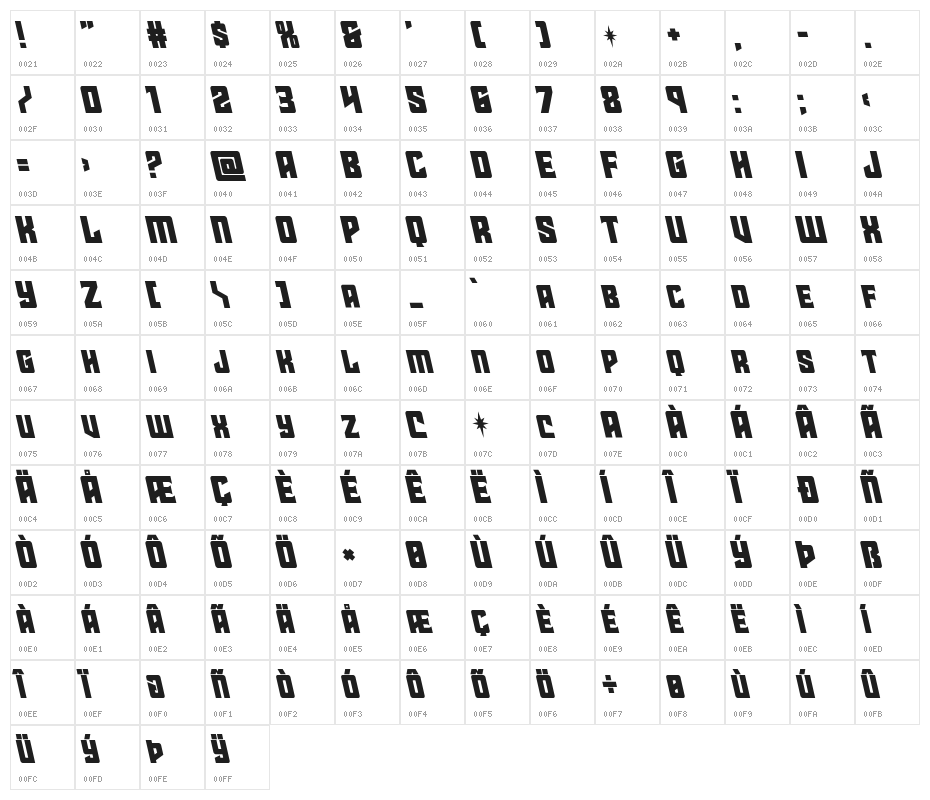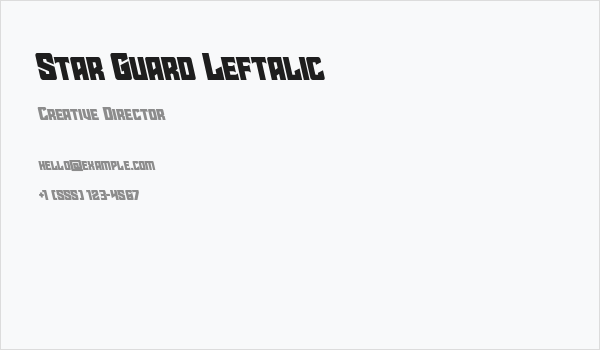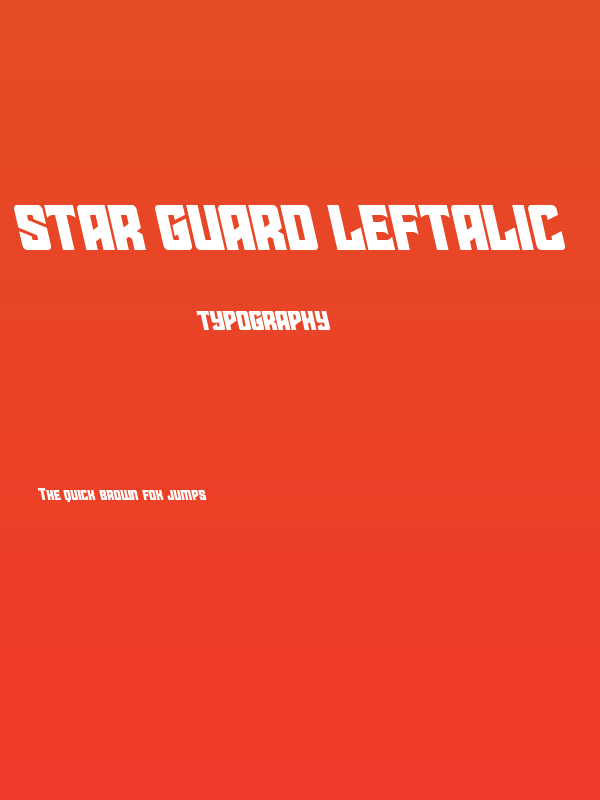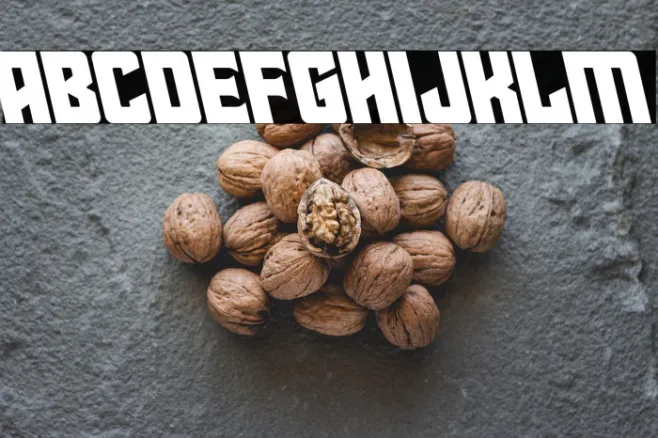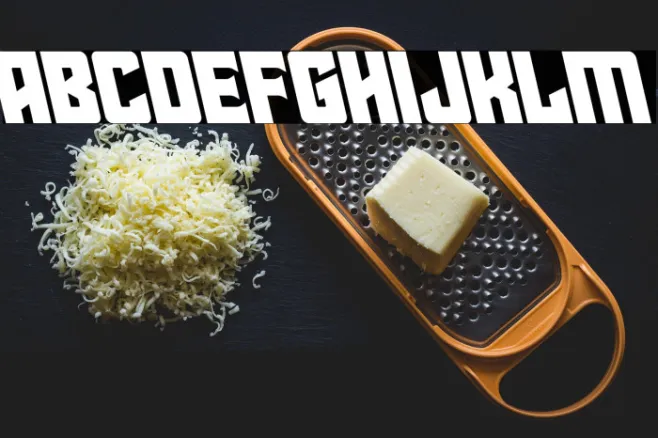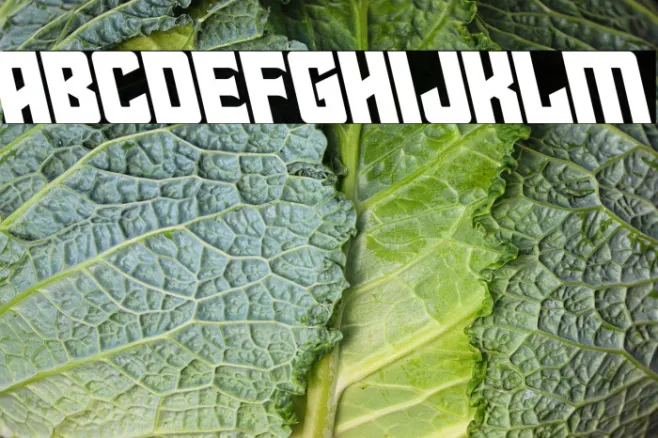
Star Guard Leftalic Font
Star Guard Leftalic Description
This font features a bold and dynamic design with a distinct slant to the left, giving it a sense of motion and energy. The characters are blocky and geometric, with sharp angles and a strong presence. The uppercase and lowercase letters maintain a consistent style, while the numerals and special characters complement the overall aesthetic. The font's boldness and unique style make it suitable for attention-grabbing designs.
| Name | Star Guard Leftalic |
| Font Family | StarGuardLeftalic |
| Proposed Projects | Ideal for sports branding, action-themed posters, video game titles, and dynamic logos. |